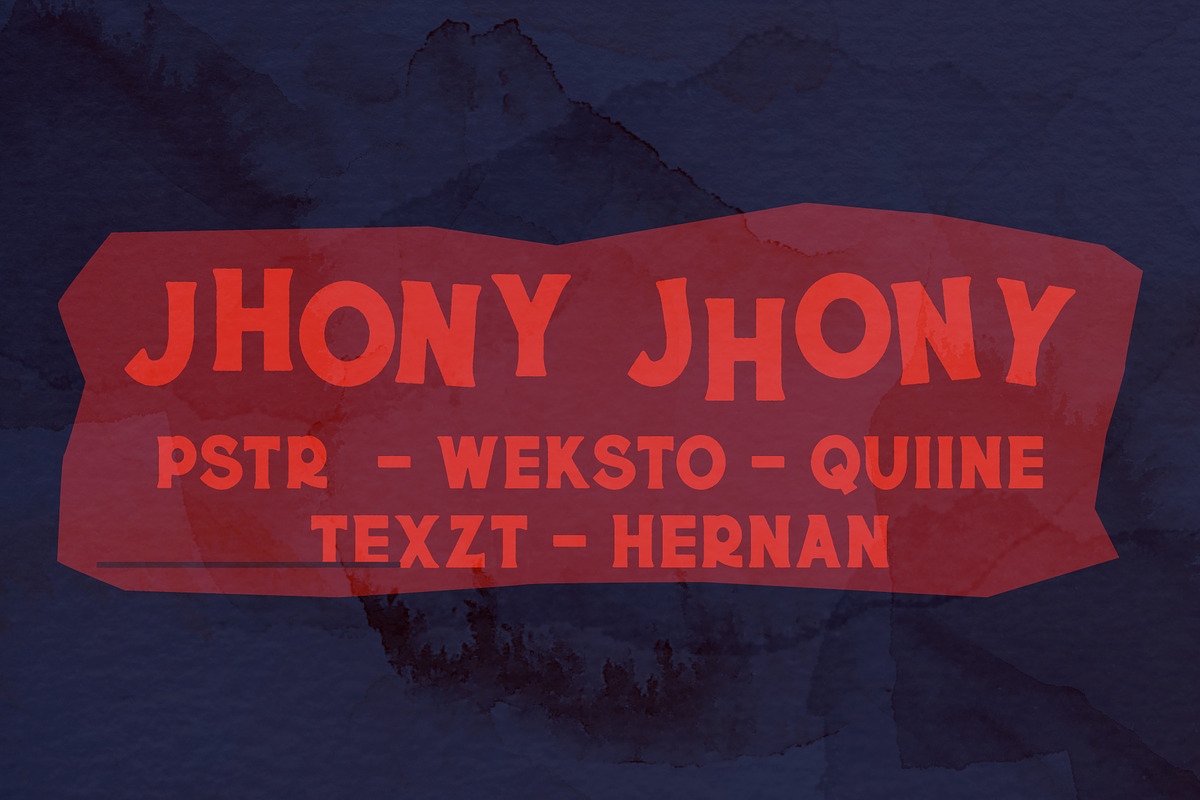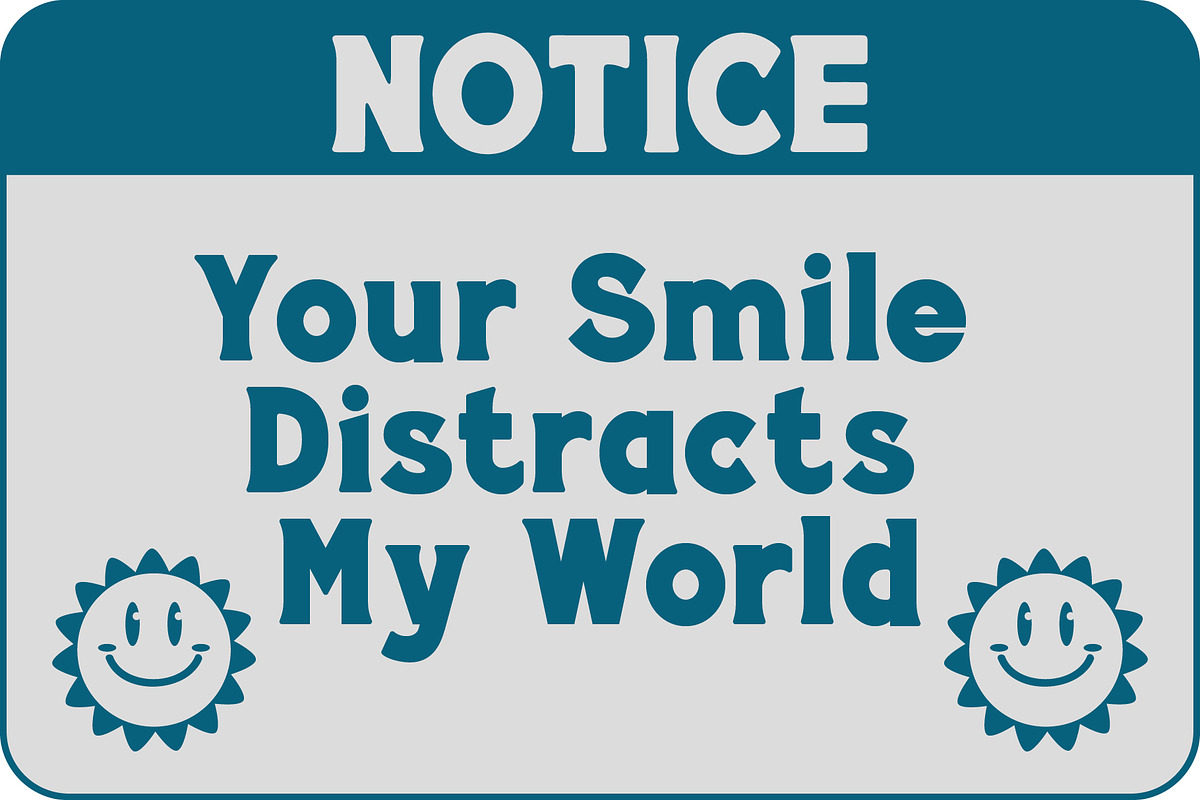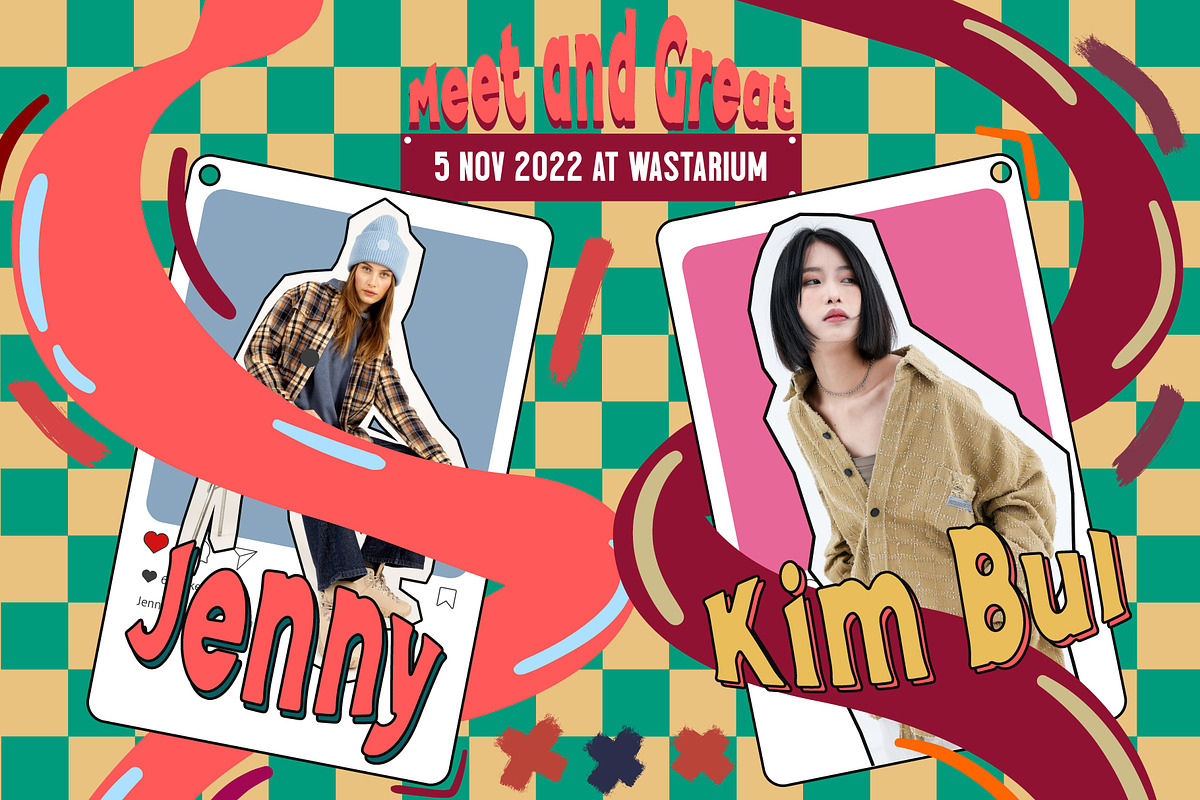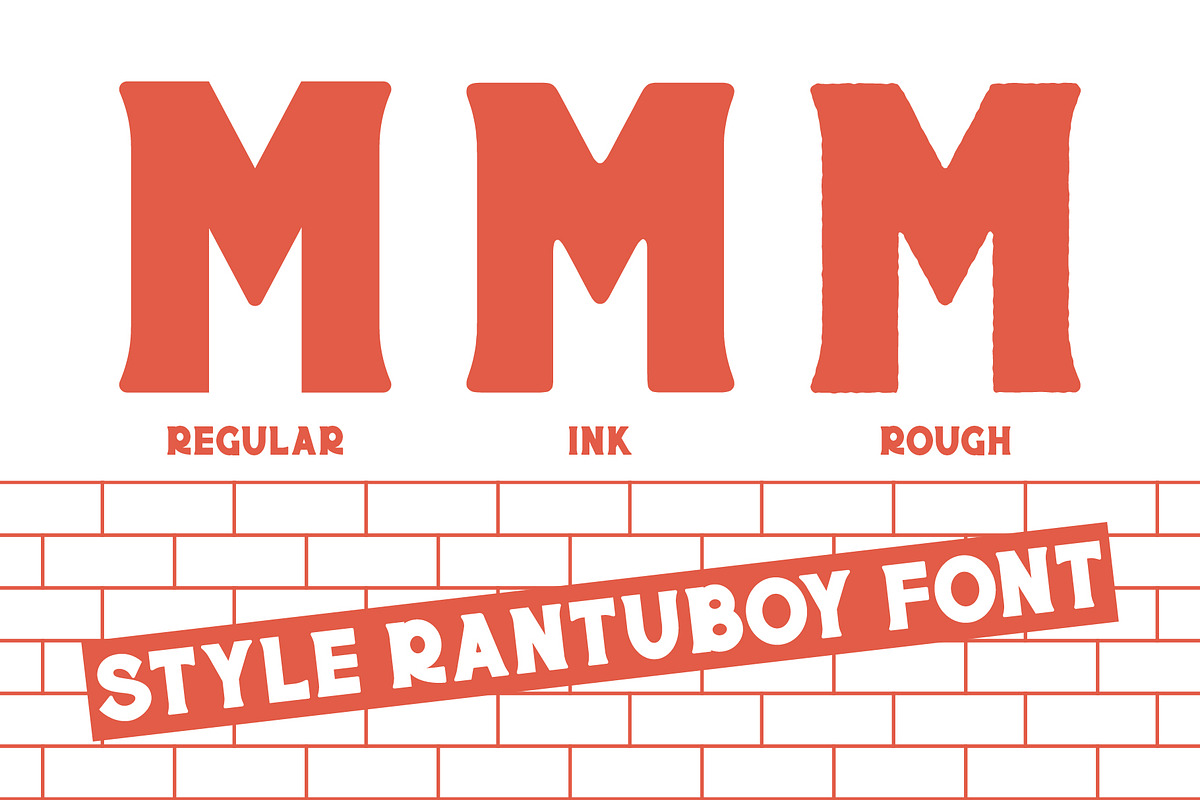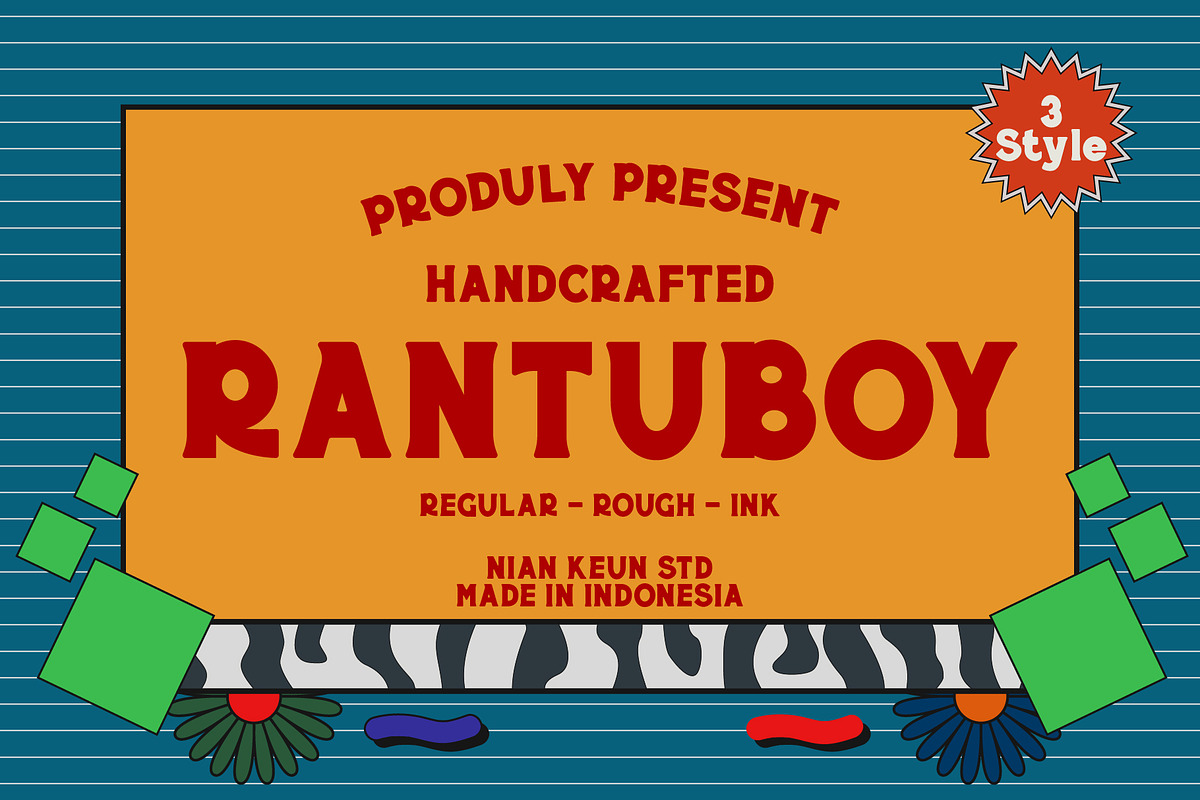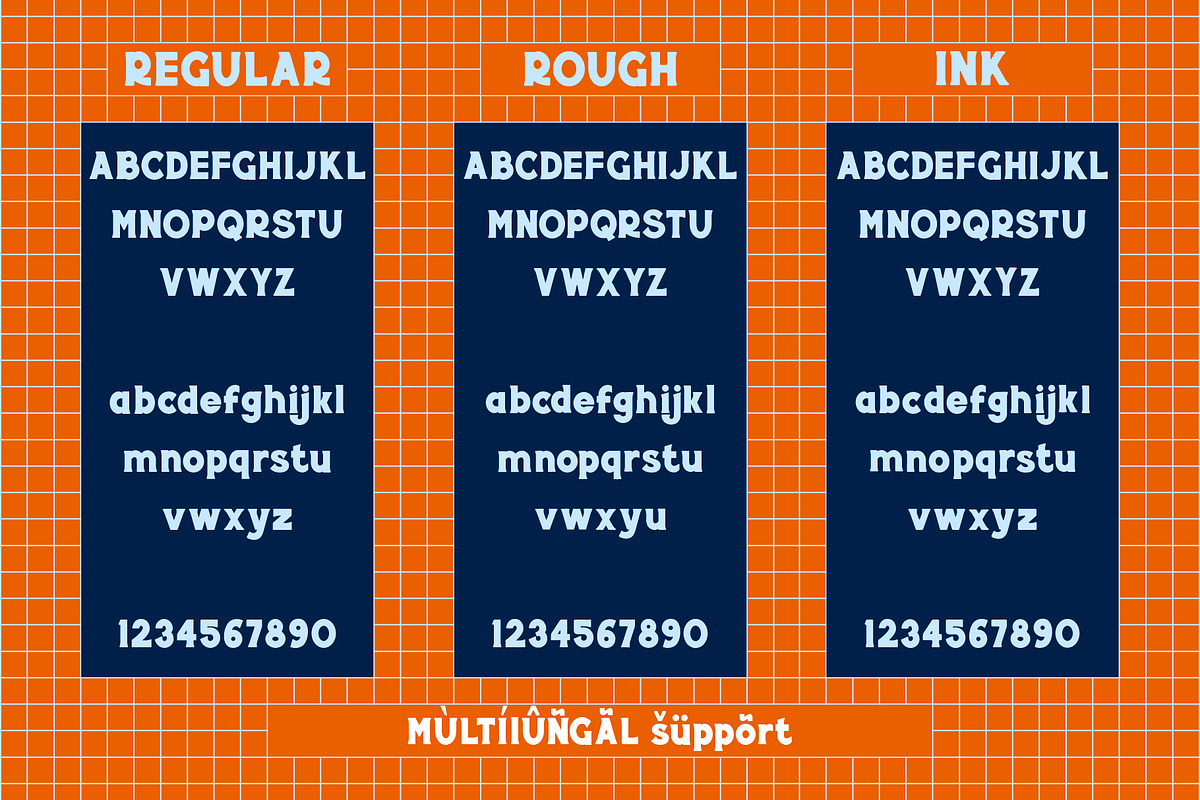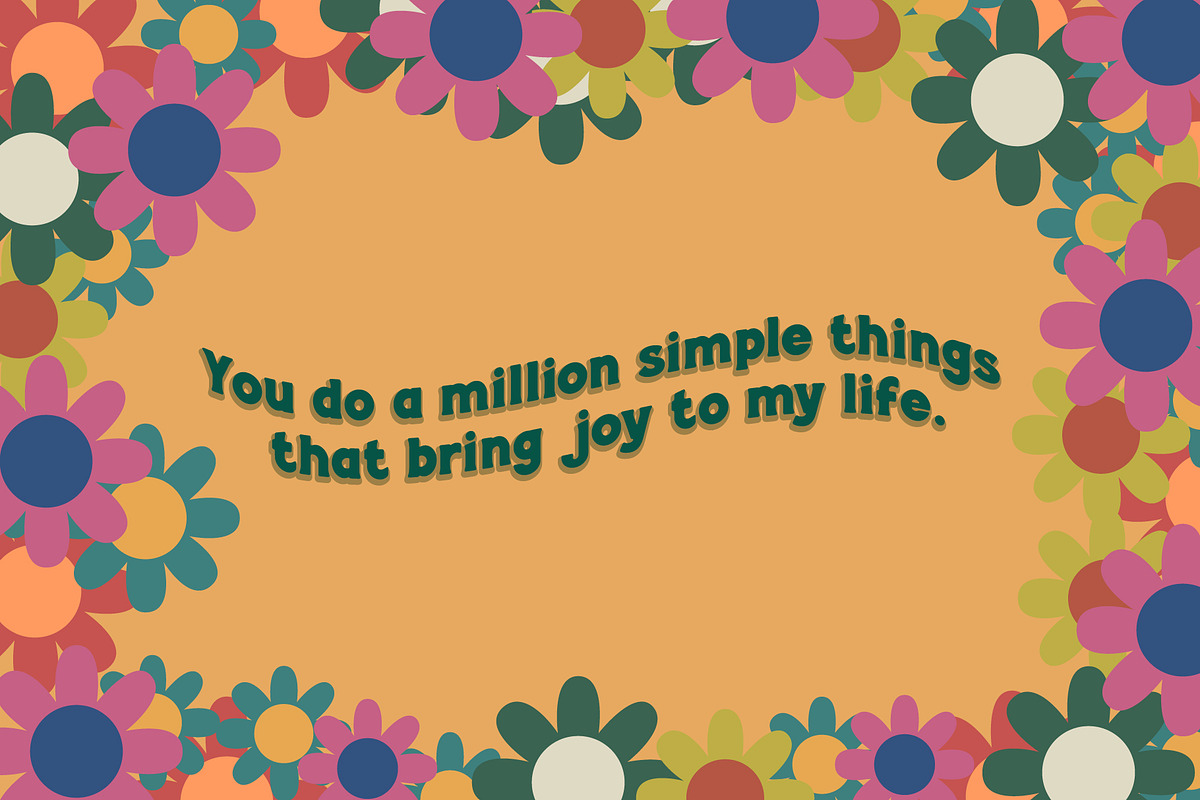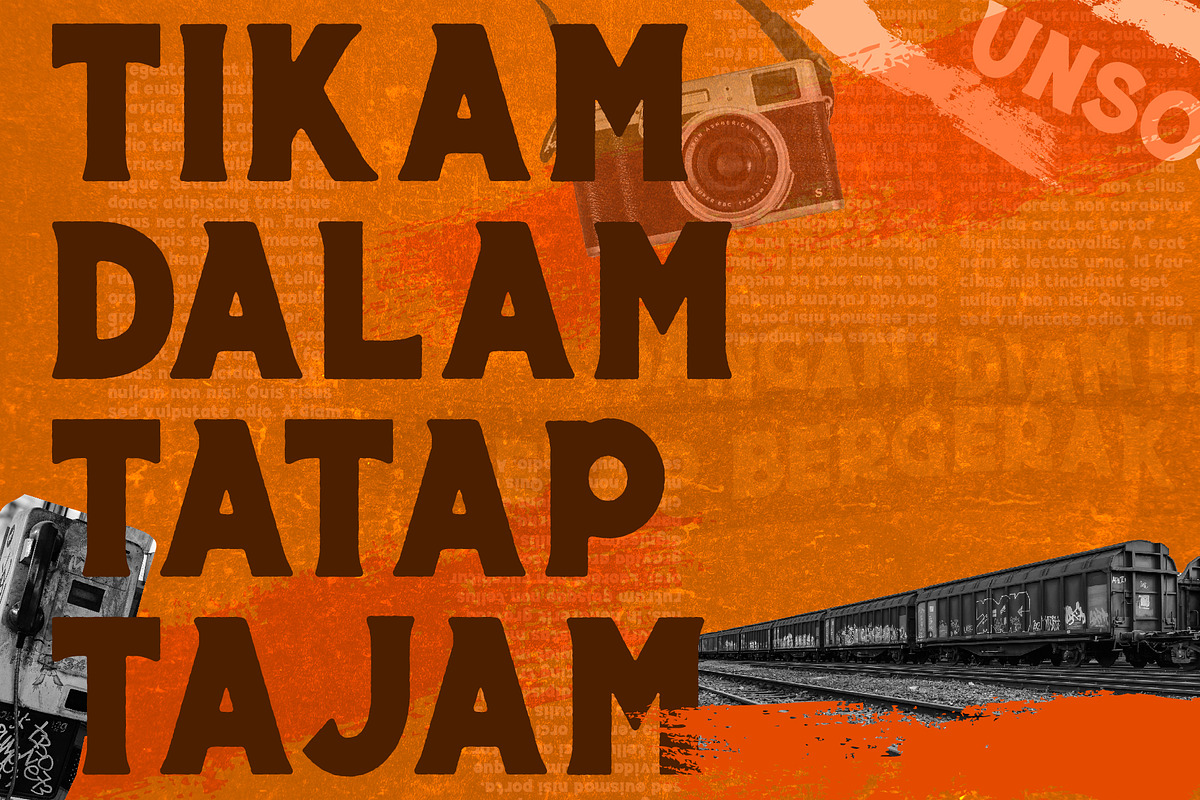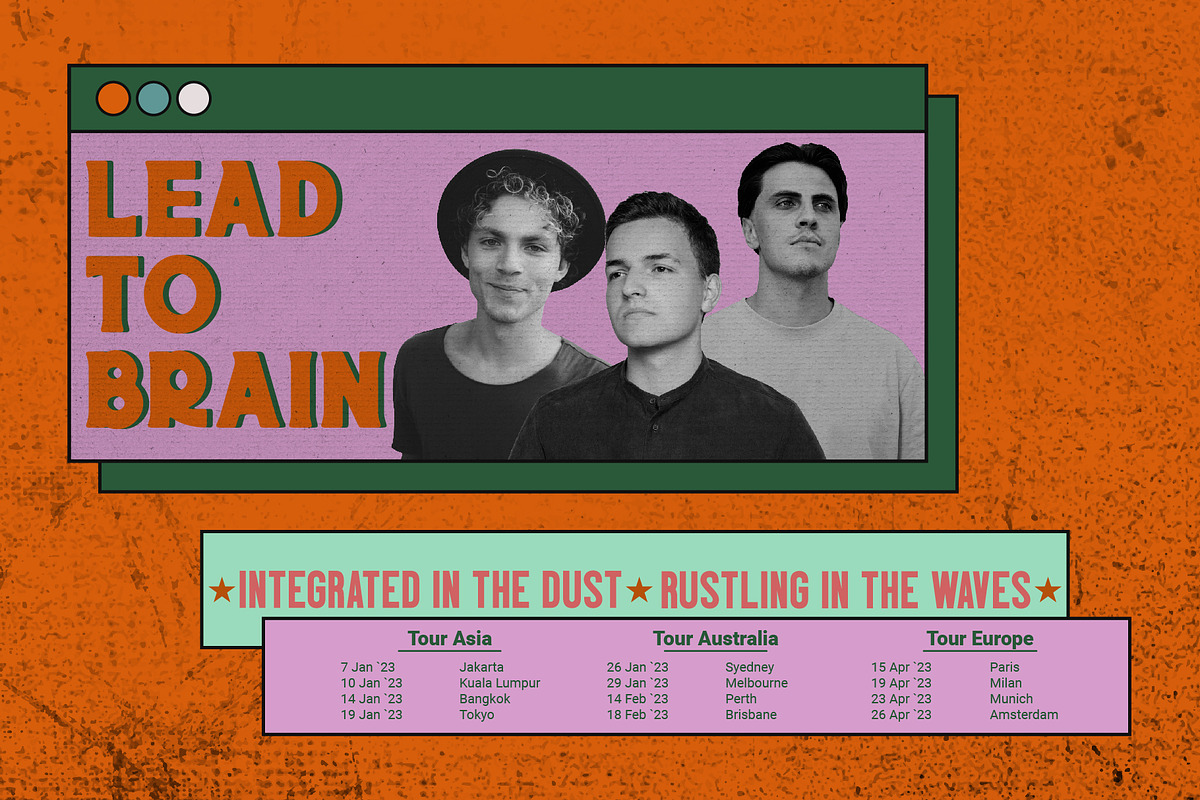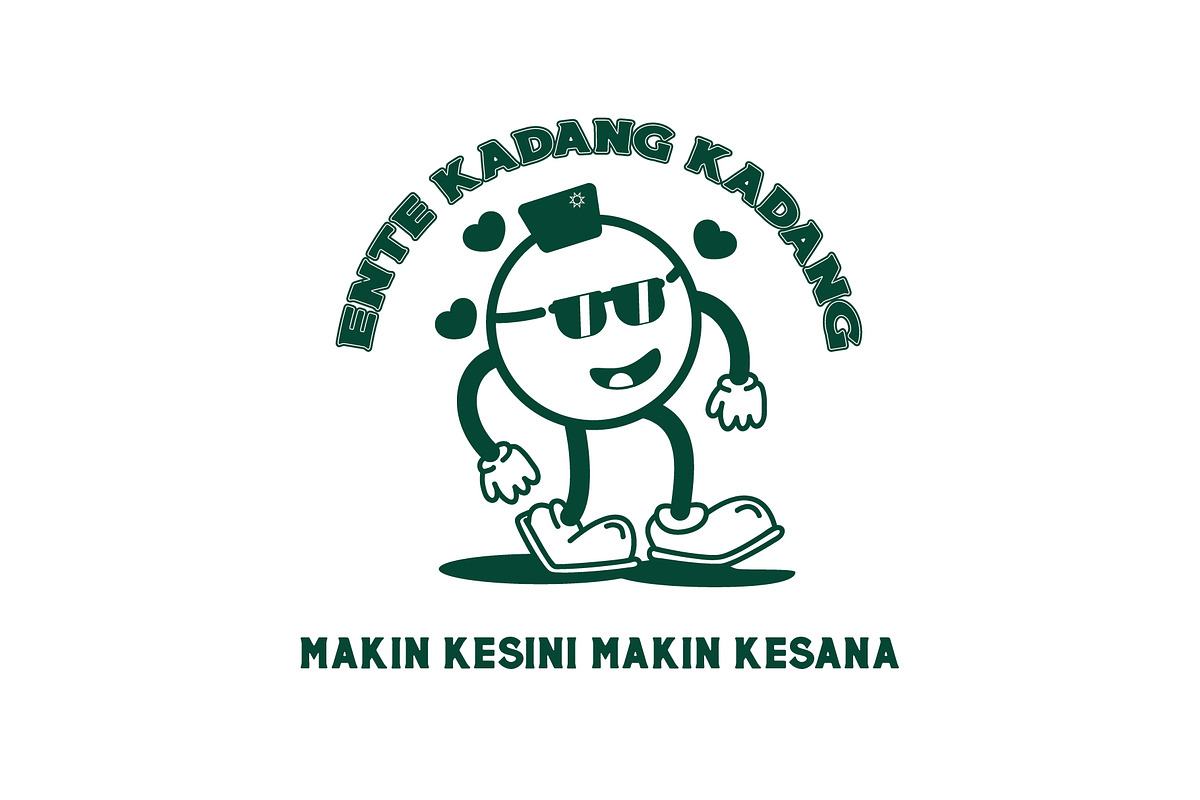
Rantuboy
Rantuboy is inspired by various retro and vintage characters that are arranged in such a way as to make it look attractive. The thick impression makes this font unique as part of the vintage or retro font family, so this font is very easy to apply to your designs such as festival poster designs, t-shirt designs, logo designs, greeting cards, or anything awesome design. This font also supports the illustrations that you make to be cooler and look fantastic.